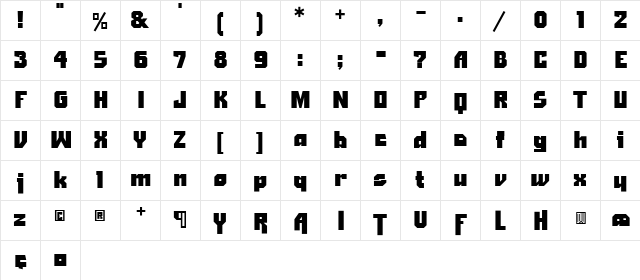
ShaftDV Medium
Design Context for ShaftDV Typeface
ShaftDV is a composed and adaptable typeface that performs quietly and consistently across a wide range of design contexts.